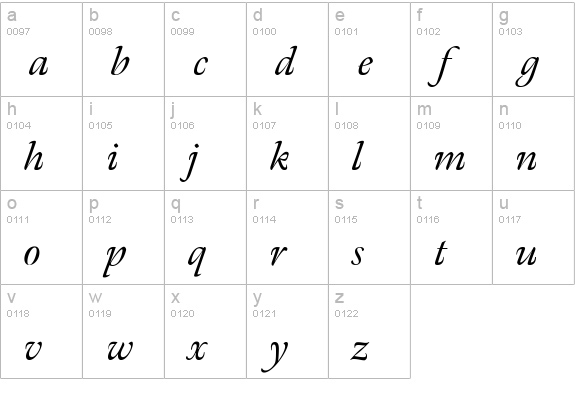
Meno-Italic is a distinctive, italic variant in the Meno typeface family \xE2\x80\x94 well suited to design and typography projects.
Meno-Italic is a stylish and versatile font that combines classic elegance with a modern twist. Its sleek, slim letterforms exude sophistication and are perfect for adding a touch of refinement to any design project. The italicized slant adds a dynamic flair, making Meno-Italic a standout choice for headings, quotes, and branding materials. Best of all, Meno-Italic is available for free download at FontsMarket.com. This means you can easily access this premium font without any cost, allowing you to elevate your designs without breaking the bank. Don't miss out on the opportunity to enhance your creations with the timeless charm of Meno-Italic - download it today and let your creativity shine!